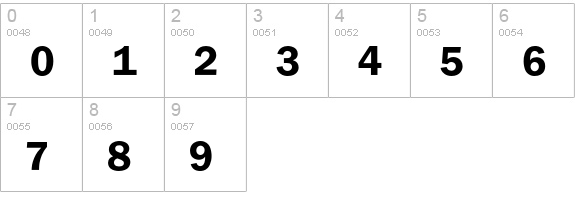
Franklin Gothic* Demi Font Details
Franklin Gothic* Demi is a sub-bold, structured variant in the Franklin typeface family \xE2\x80\x94 well suited to sub-headlines and emphasised passages.
Franklin Gothic Demi is a bold and striking font that exudes a sense of modernity and strength. With its thick and well-defined letterforms, this typeface is perfect for making a bold statement in any design project. The clean lines and sturdy appearance of Franklin Gothic Demi make it a versatile choice for a wide range of applications, from headlines to body text. What sets Franklin Gothic Demi apart is its ability to command attention while maintaining a sense of professionalism and elegance. Whether you're designing a poster, a website, or a logo, this font will help you stand out and make a lasting impression. The best part is that Franklin Gothic Demi is available for free download at FontsMarket.com. So, you can easily access this powerful font and start using it in your projects right away. Don't miss out on the opportunity to add Franklin Gothic Demi to your font collection and take your designs to the next level.